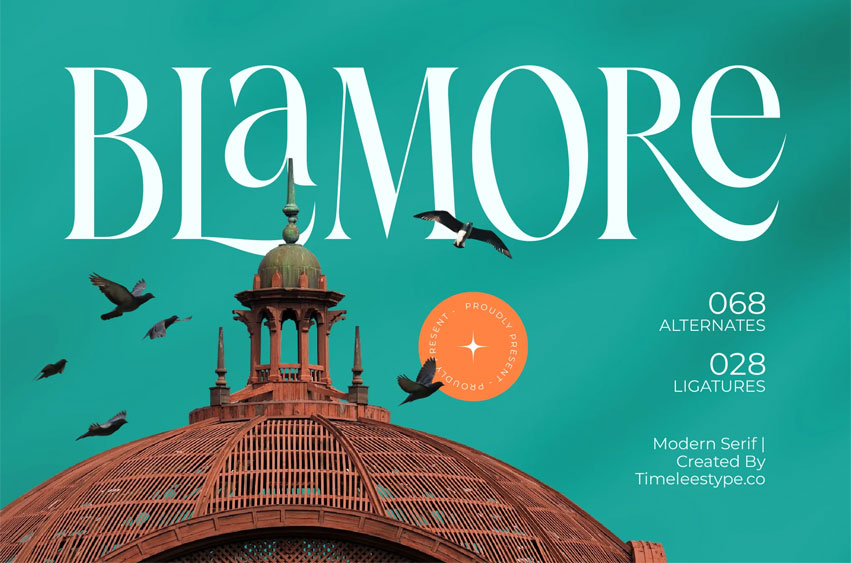
Blamore Font
Blamore Font is a modern serif font that embodies timeless elegance and artistic sophistication. Featuring 68 alternates and 28 ligatures, this typeface blends refined curves with bold structure , perfect for branding, editorial design, projects, and luxury packaging.
Inspired by classical architecture and modern design, Blamore delivers a sense of grandeur and versatility. Each letter was carefully crafted to balance strength and delicacy, making it an exceptional choice for designers who want to convey prestige and creative excellence.